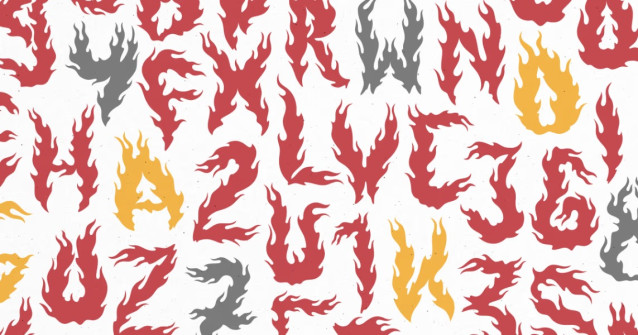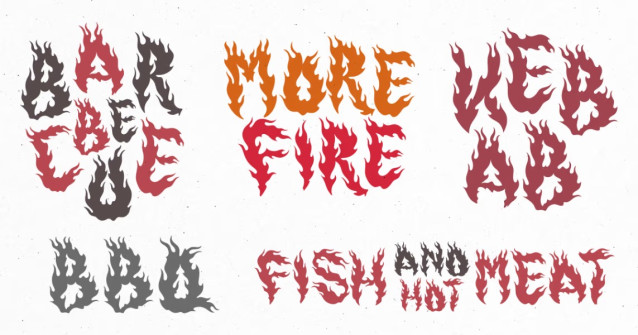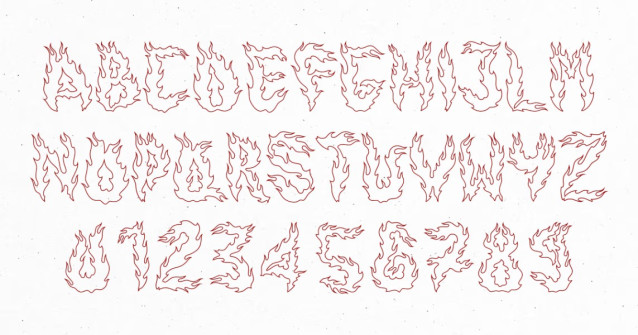
Burn-v2 Font
Burn v2 Font is a new version of Burn with more details. Burn v2 is specially handcrafted. The flame shape details are different because each letter is handcrafted, both natural and rough. Perfect for your automotive, horror and rough style designs.